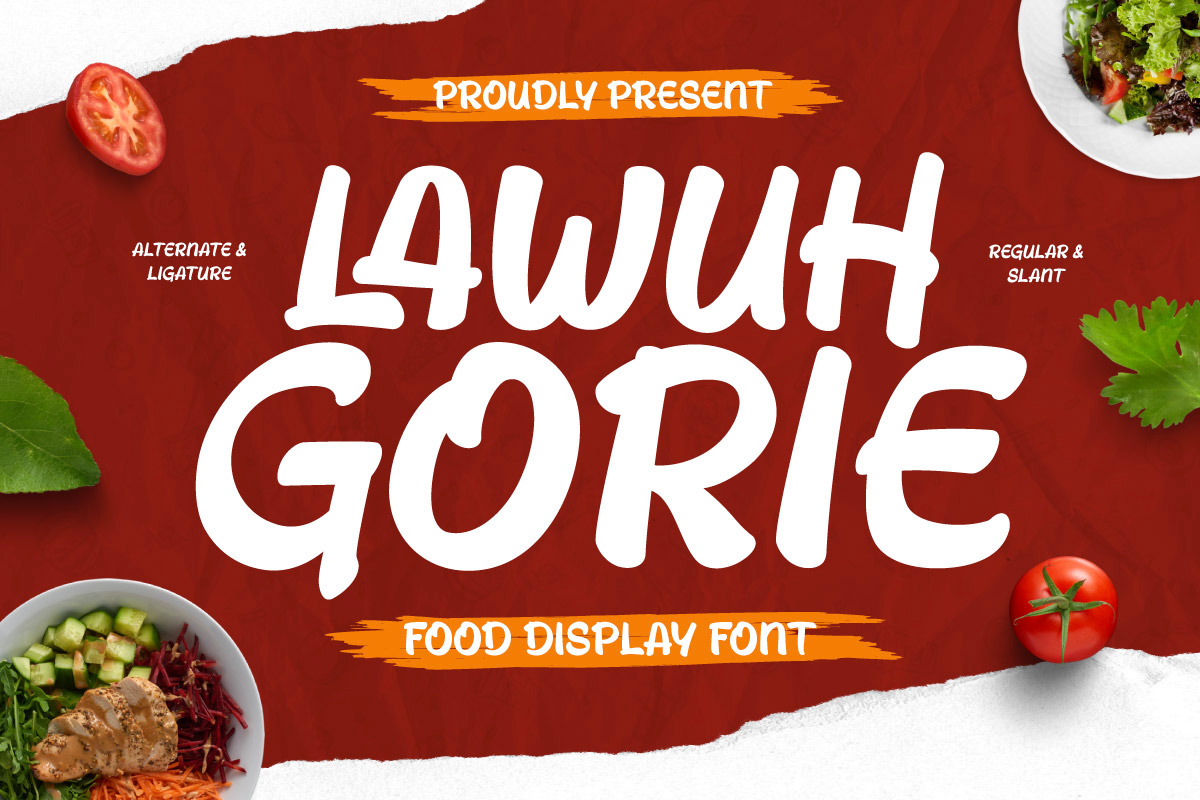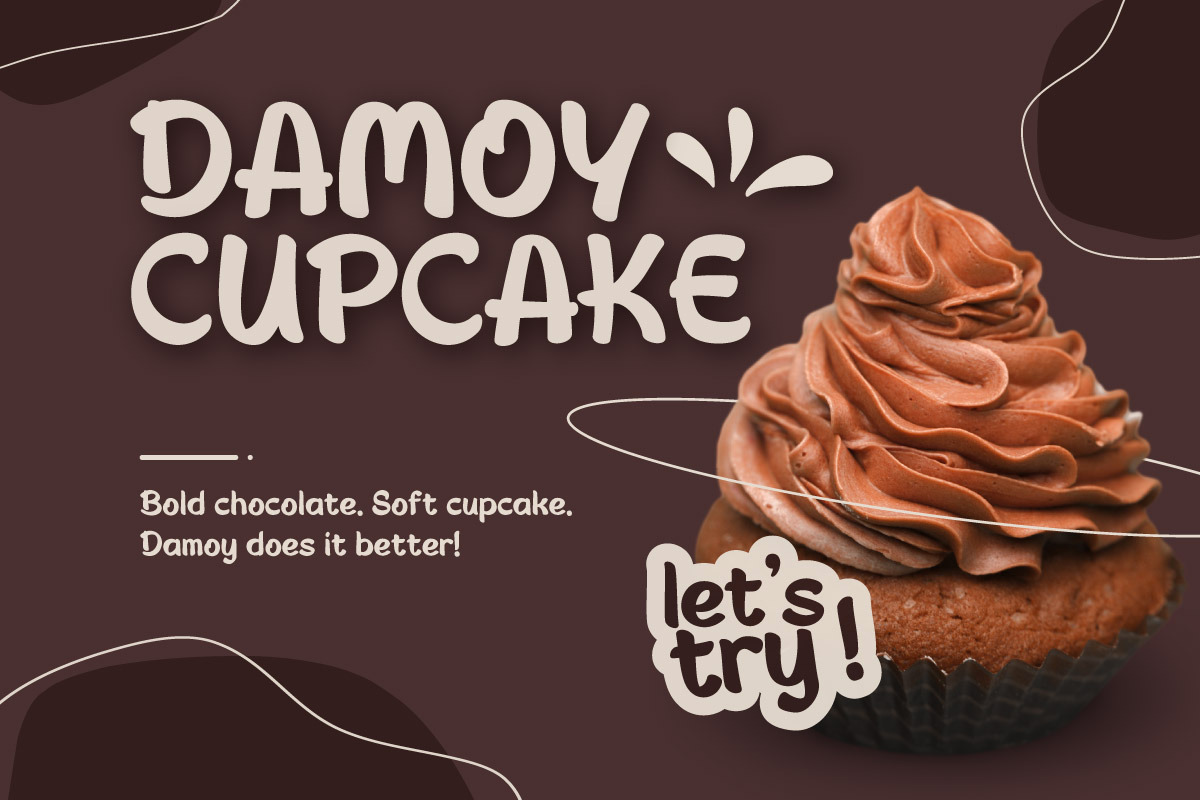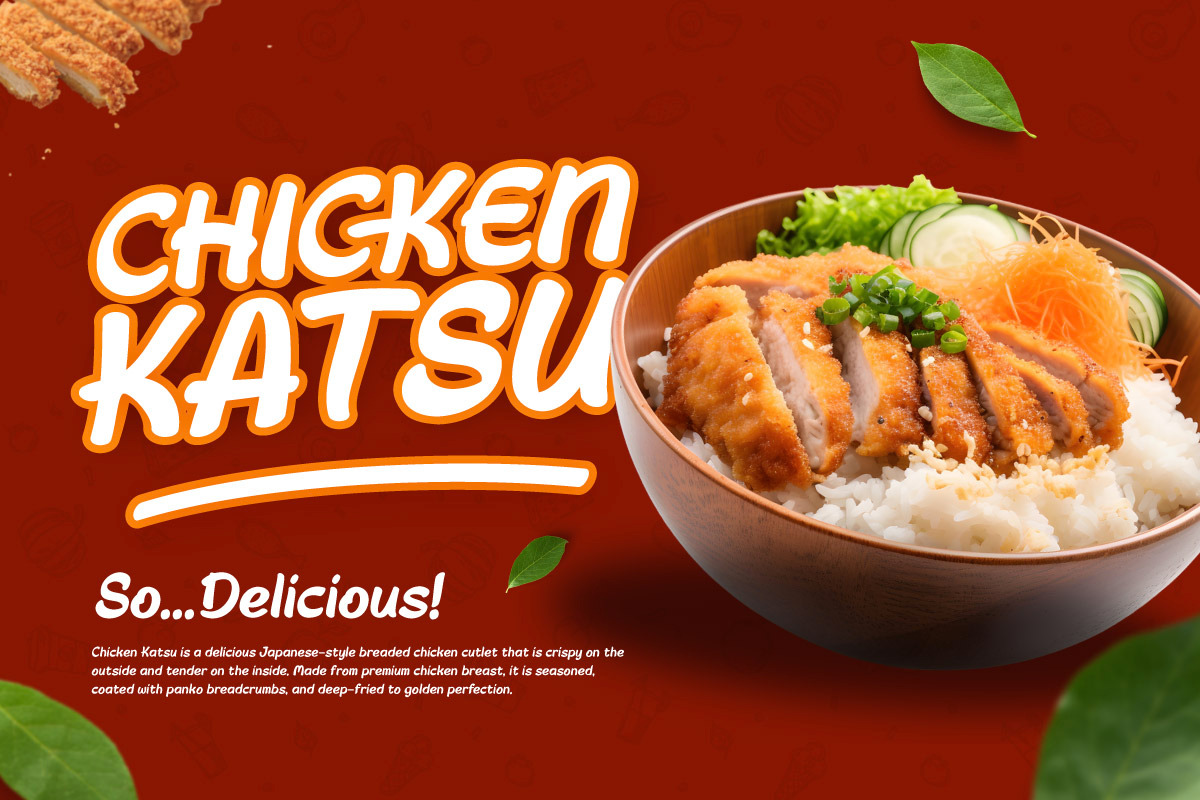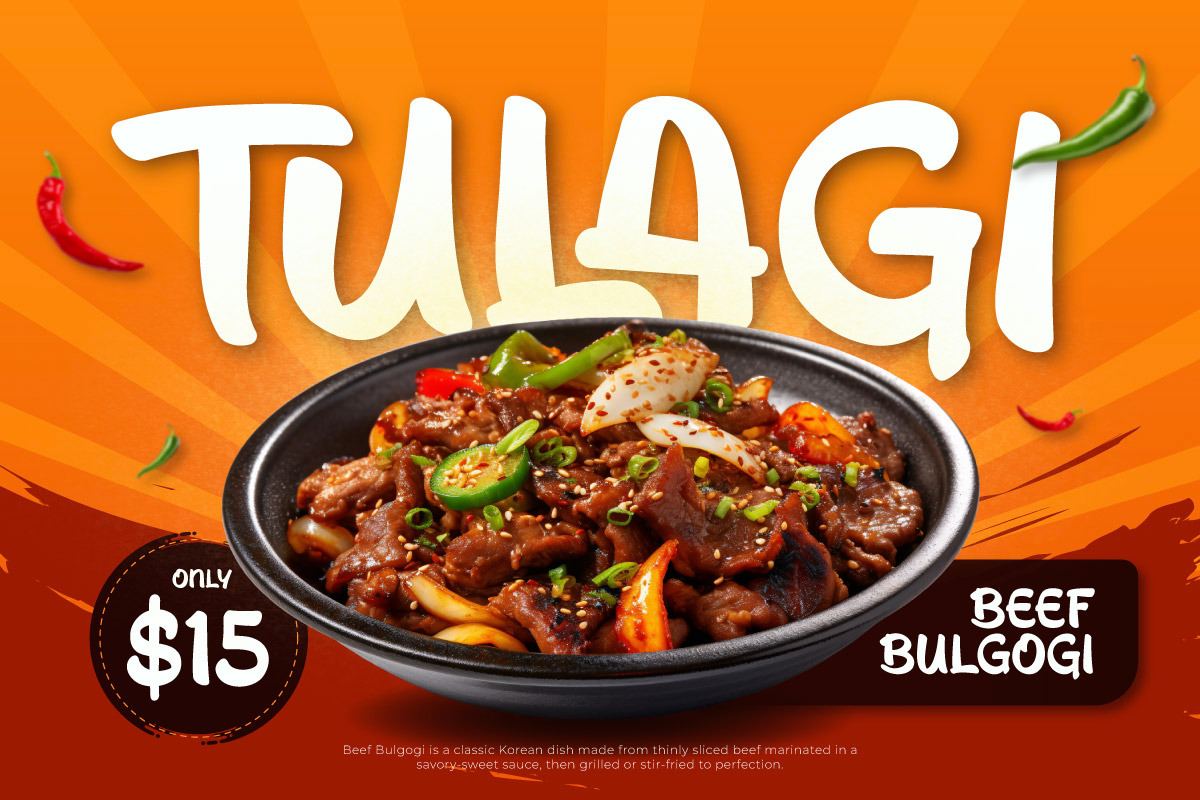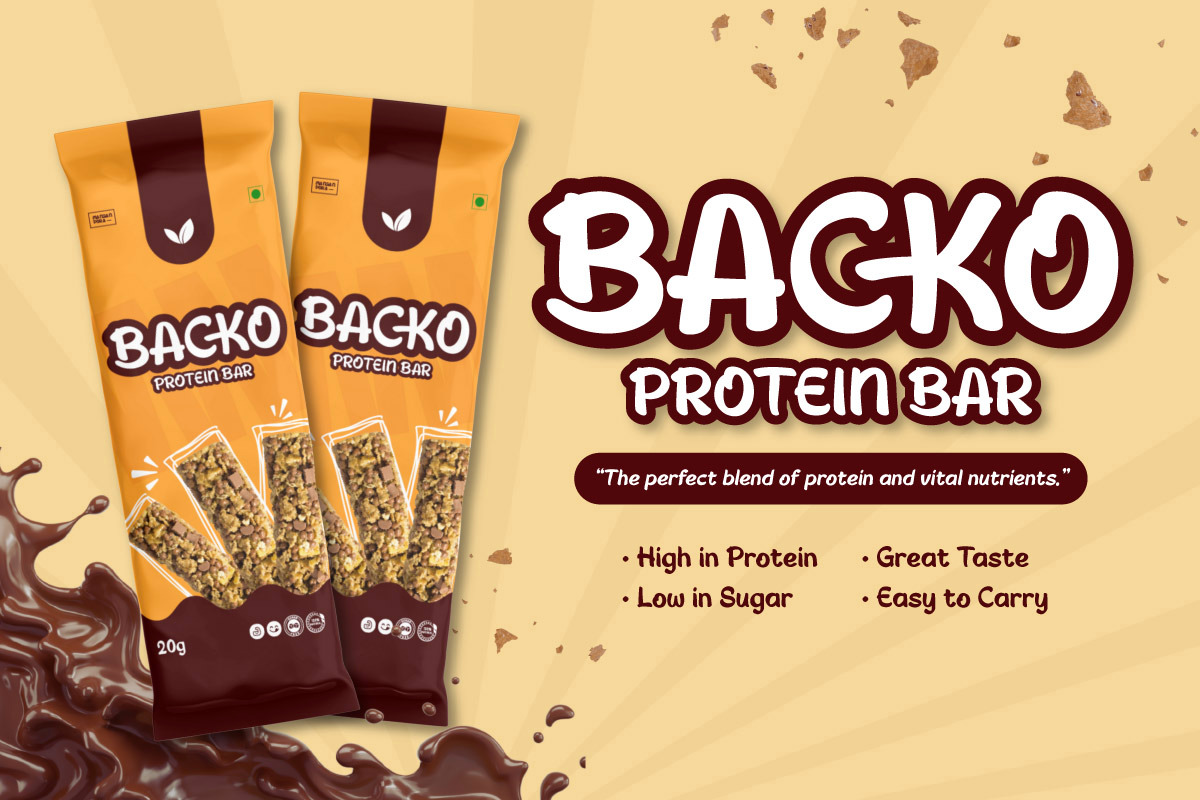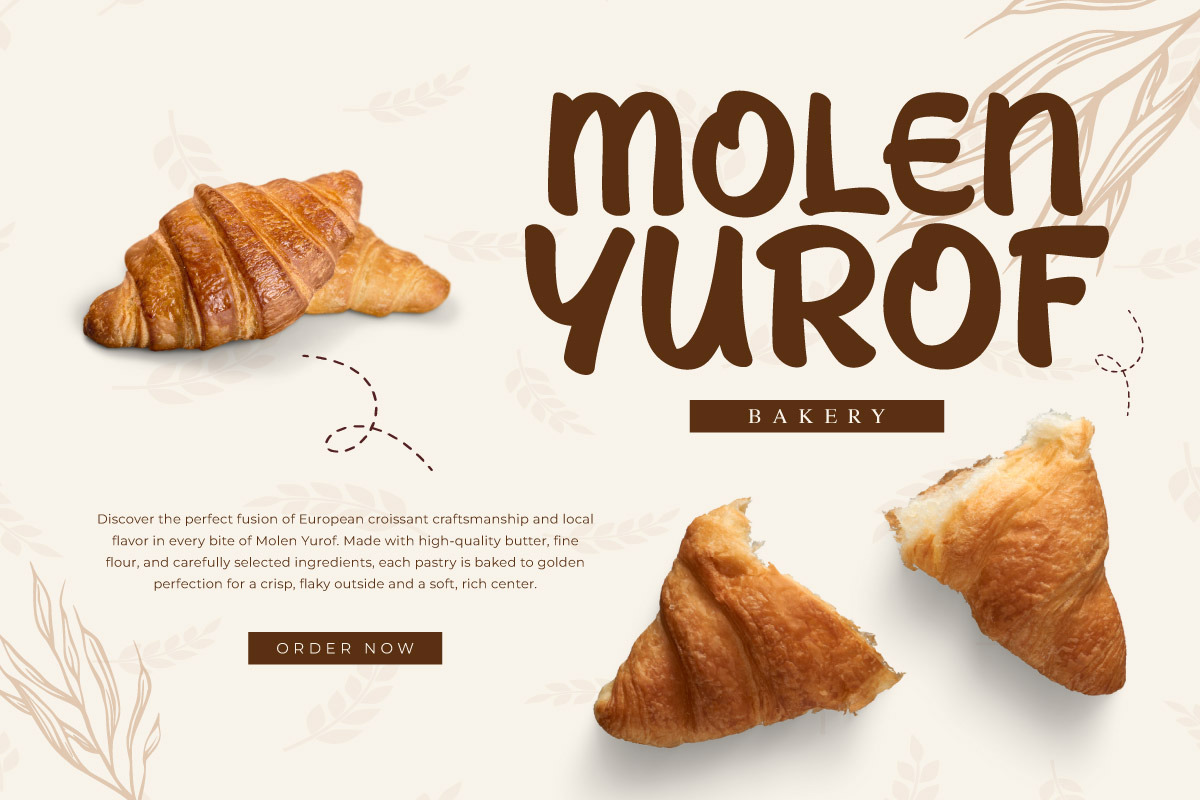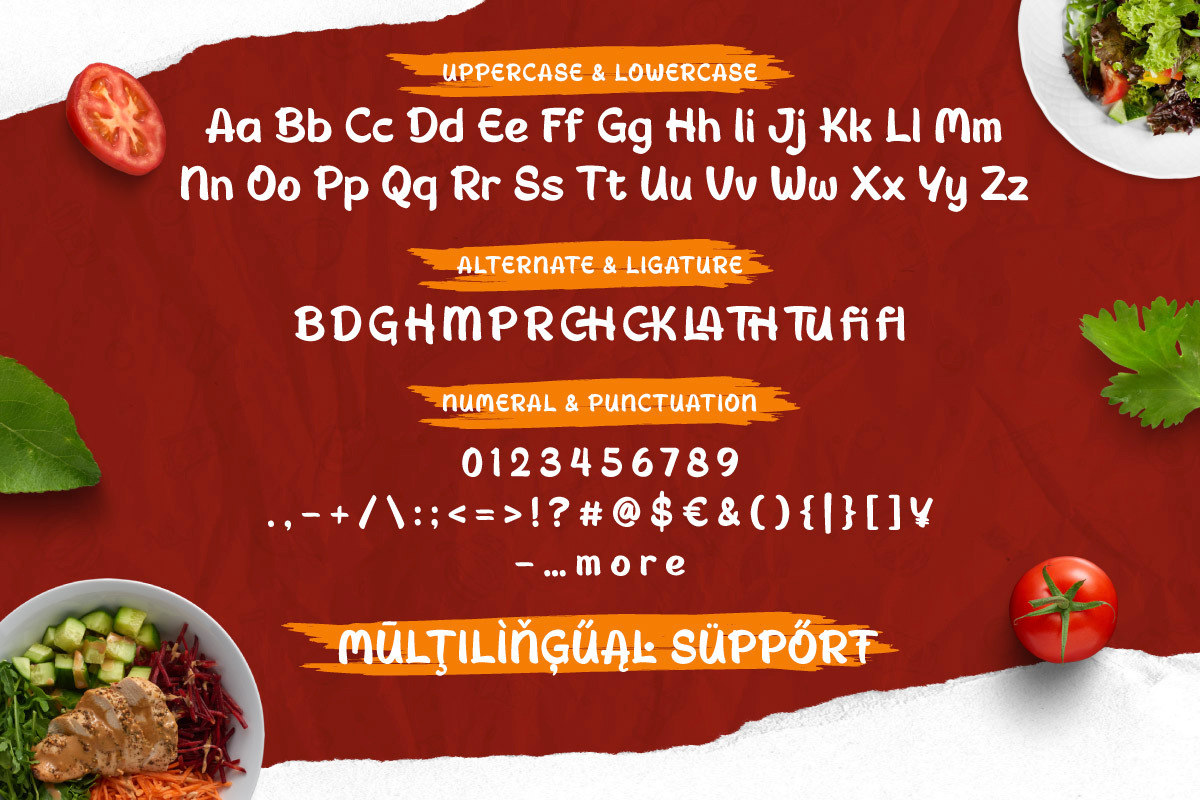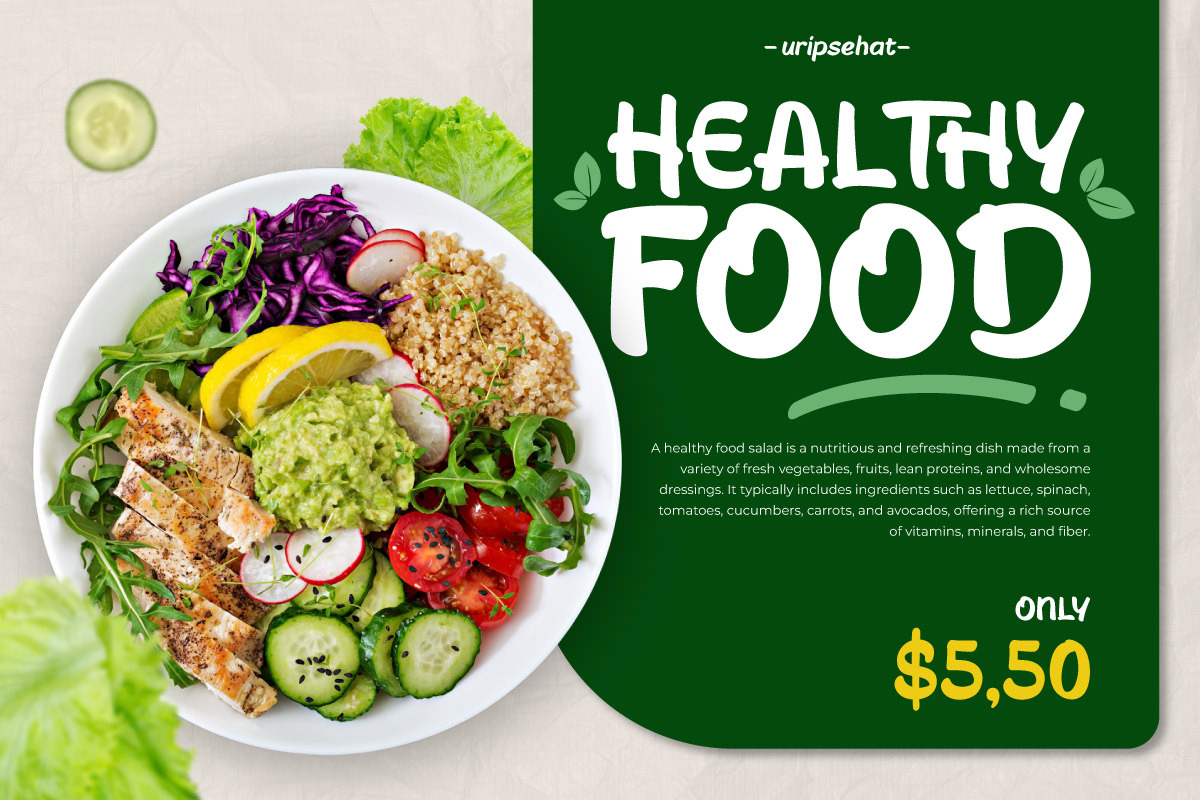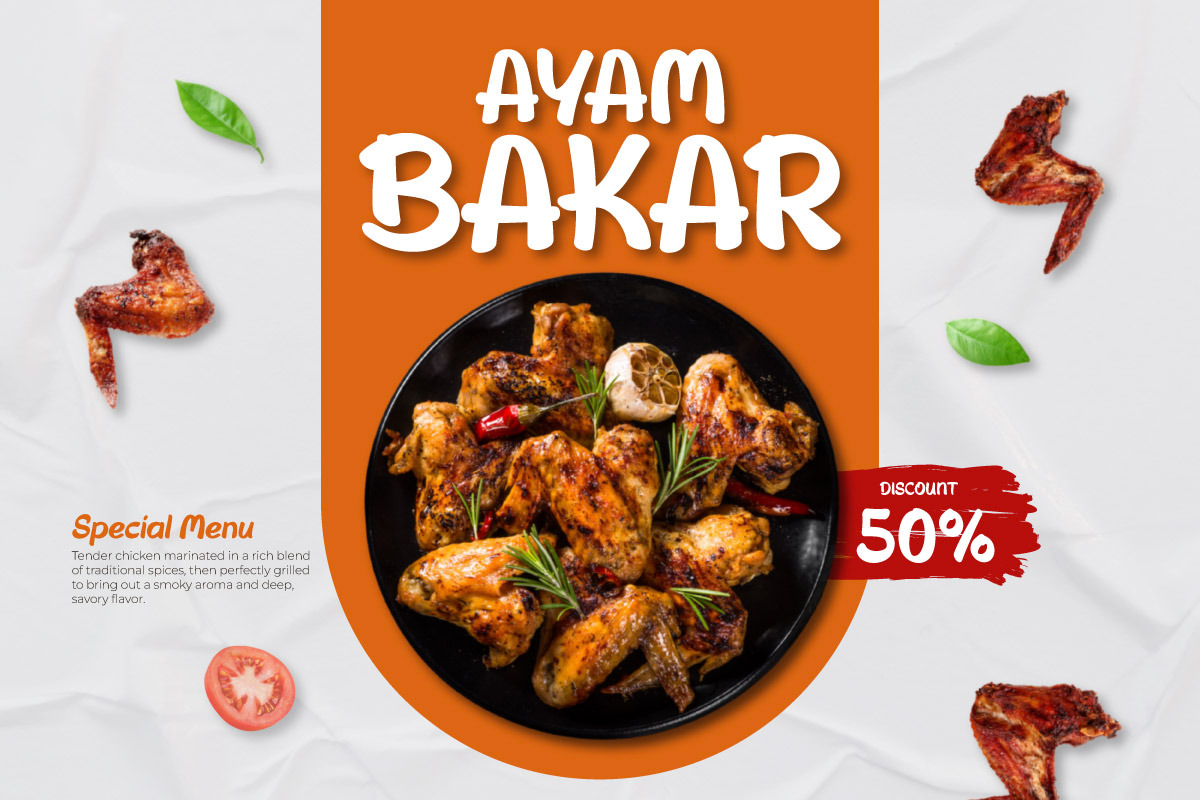
Lawuh Gorie - Food Display Font
Lawuh Gorie is a bold and appetizing food display font crafted to bring warmth and delicious appeal to your food-related projects. Featuring two lively styles—Regular and Slant—this font delivers both versatility and personality, making it ideal for food branding, restaurant logos, product packaging, menu designs, and promotional materials.
Each letter in Lawuh Gorie is designed with soft curves and a slightly rounded form, evoking the richness and flavor of traditional meals. The Slant version adds dynamic movement, perfect for conveying enthusiasm and inviting energy. Whether you’re designing for street food, homemade snacks, or gourmet products, Lawuh Gorie adds a flavorful character to your visual message.
Spice up your designs with the unique taste of Lawuh Gorie—where typography meets culinary creativity.